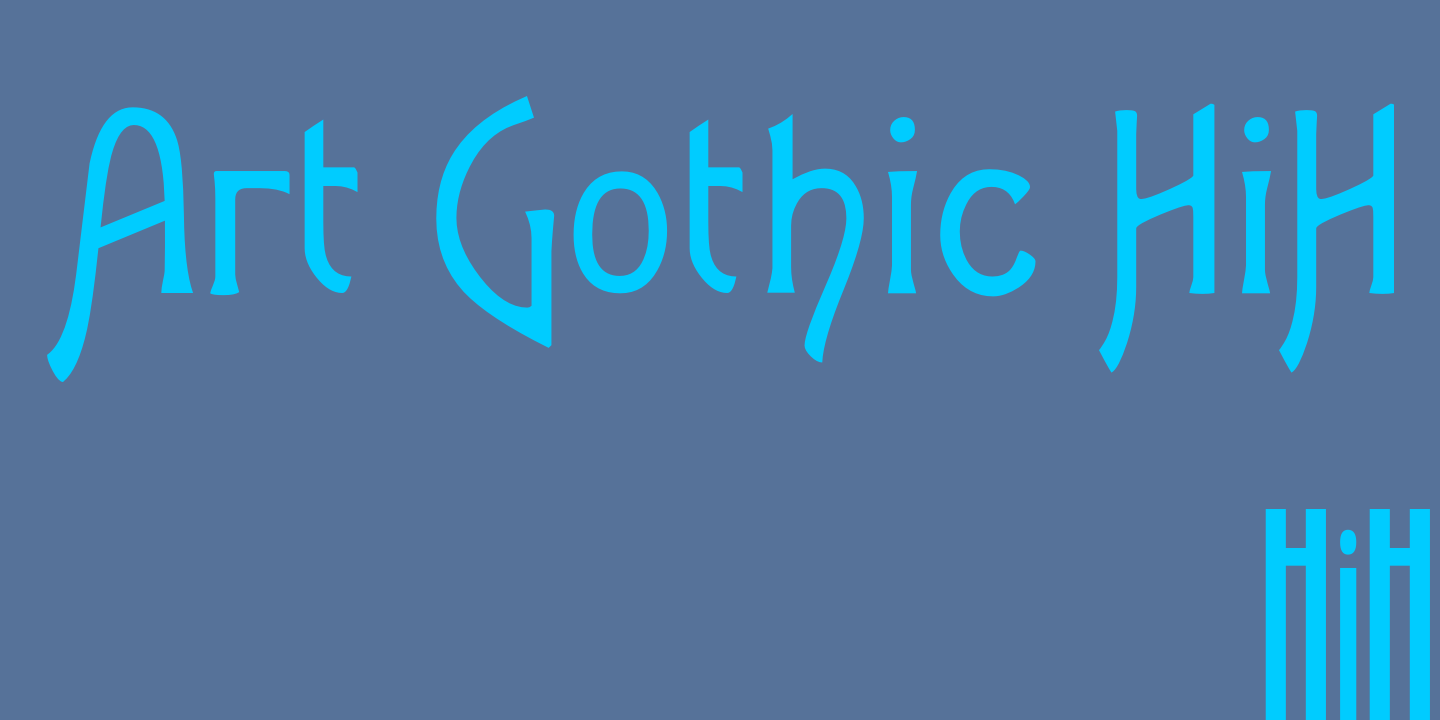
If you're looking for a dramatic, historically-inspired typeface with elegant gothic flair, Art Gothic HiH Font Free Download is an excellent choice. This vintage display font captures the ornate beauty of late 19th and early 20th-century gothic lettering, making it ideal for book covers, theatrical posters, fantasy branding, religious publications, and vintage-themed projects.
Art Gothic HiH features tall, narrow letterforms with decorative spurs and intricate strokes that evoke a sense of old-world sophistication and grandeur. Its unique character design brings a formal yet artistic quality, ideal for adding visual richness and historical weight to your typography.
Best suited for headings, logos, and other large-format text, this font makes a bold visual statement. Whether you're designing for a museum exhibit or creating medieval-inspired merchandise, Art Gothic HiH brings timeless elegance and gothic authenticity.